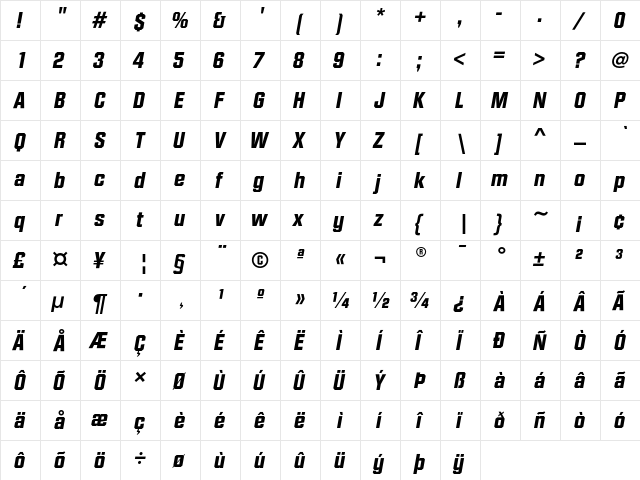
DiamanteEF BoldItalic
Design Context for DiamanteEF Typeface
DiamanteEF takes a measured approach to typography — its balanced proportions and neutral character make it a reliable workhorse for both digital and print work. Its italic angle brings a sense of urgency and motion to the letterforms. Its bold stroke weight gives it real presence on the page.
Pro Tip: Try DiamanteEF for annotation and caption copy alongside an upright companion — the contrast in angle creates a dynamic but ordered typographic system.